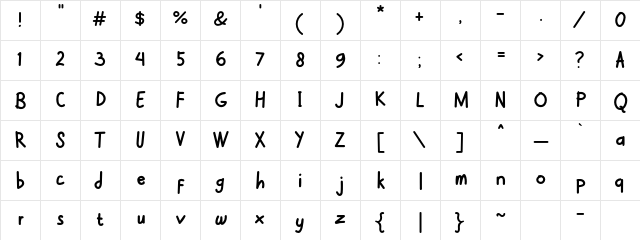
Dreiton Regular
Design Context for Dreiton Typeface
Dreiton takes a measured approach to typography — its balanced proportions and neutral character make it a reliable workhorse for both digital and print work.
Pro Tip: Use Dreiton in both headline and body roles to test its range before committing to a single application.